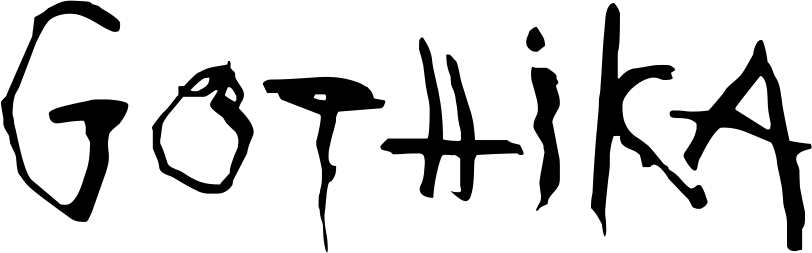
Gothika Font
To share a scary vibe, this horror font can help you a lot. This one with thin and fragile letters includes only uppercase characters. You can use Gothika for Halloween flyers, movies, blogs, and other needs. If you wish to get more of this collection, head over to RB right now.